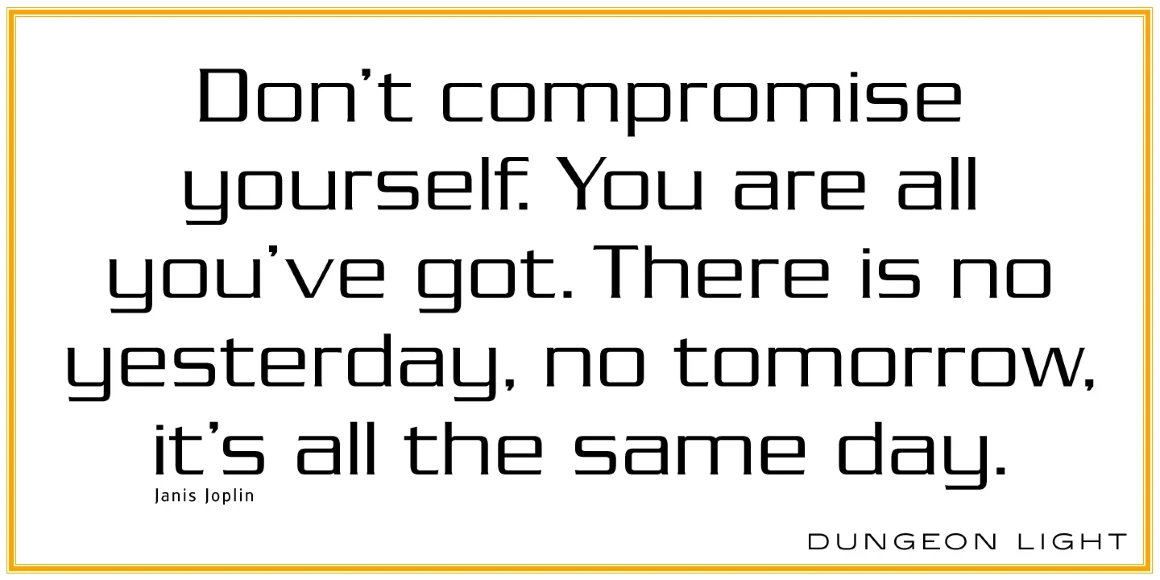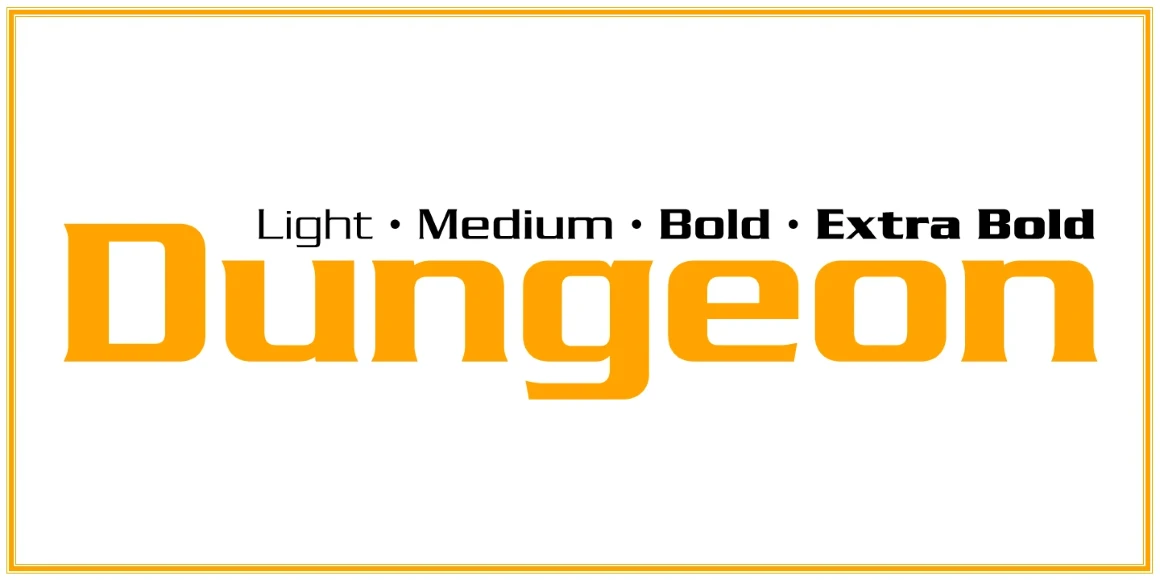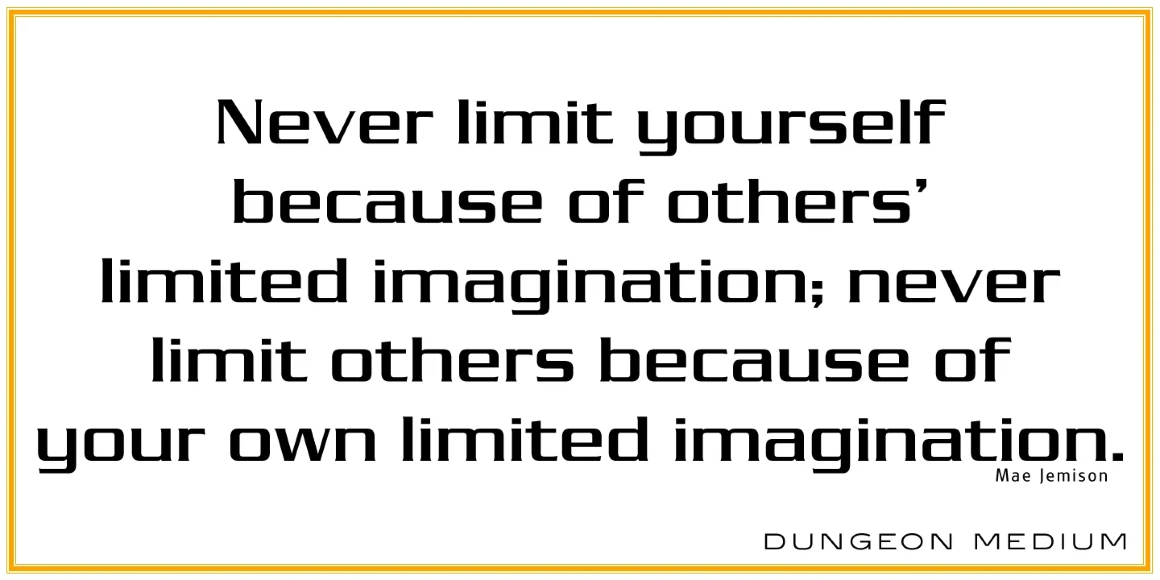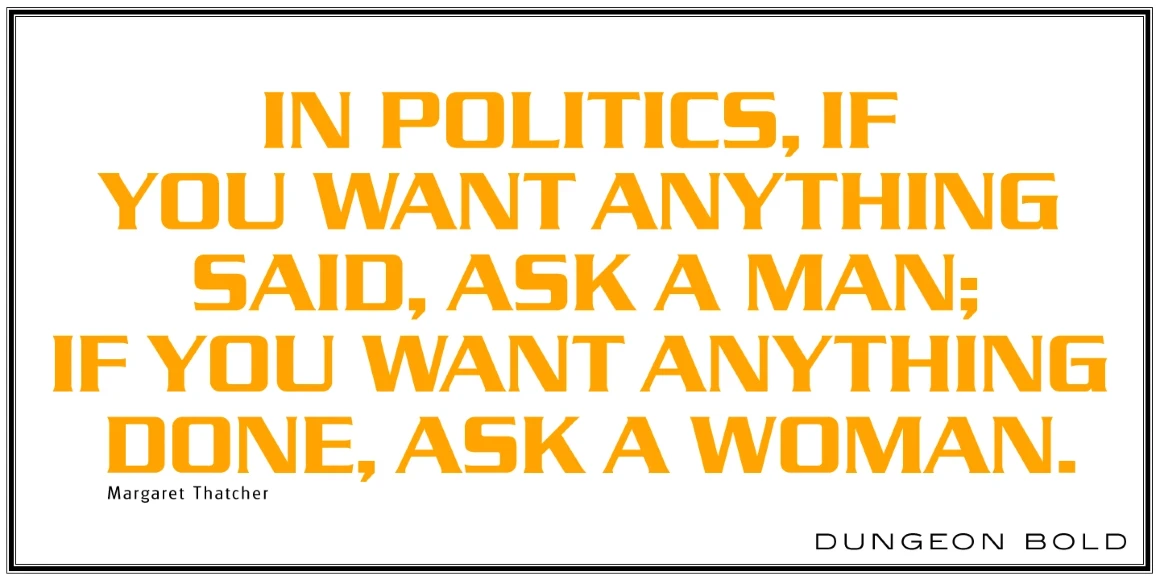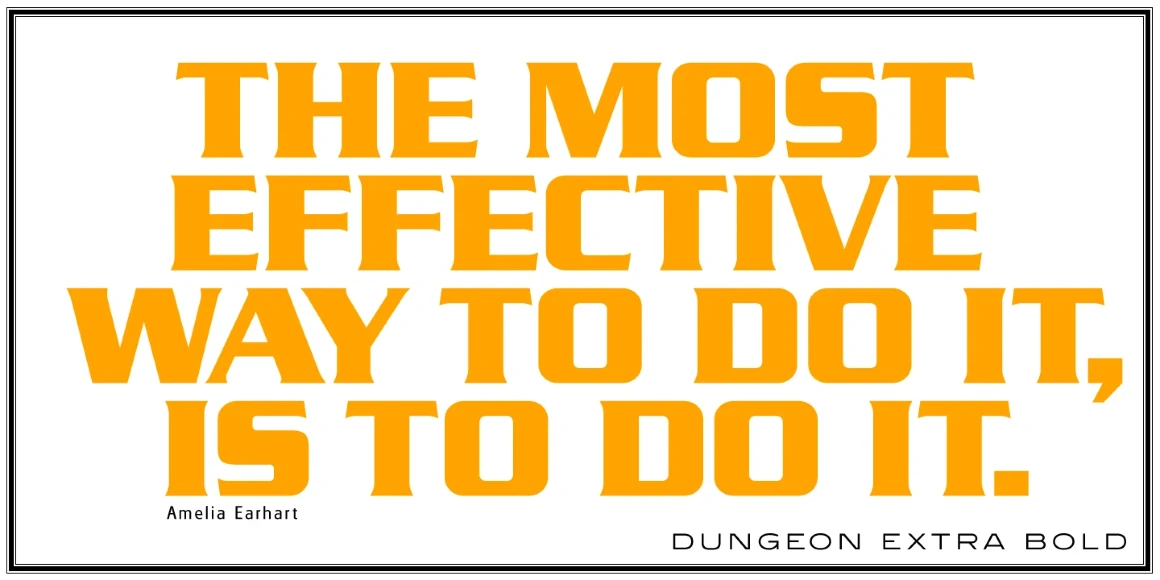
Dungeon
Dungeon Light
Dungeon Medium
Dungeon Bold
Dungeon Extra Bold
Dungeon is a glyphic font family that combines elements of both sans serif and serif typefaces. It was designed exclusively for the Red Rooster Collection in 1998 by Steve Jackaman (ITF). The family is inspired by Dick Jensen’s famous design “Serpentine,” which was created for the Visual Graphics Corporation (VGC) in 1972. Dungeon is available in four weights, each of which is optimized for legibility at any size. The family’s masculine feel has helped it to turn up in a variety of projects, ranging from brand identity to advertising.